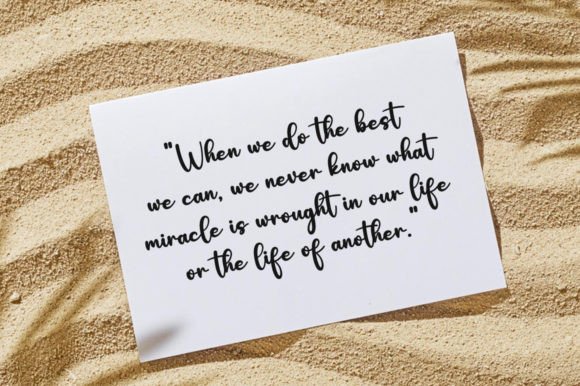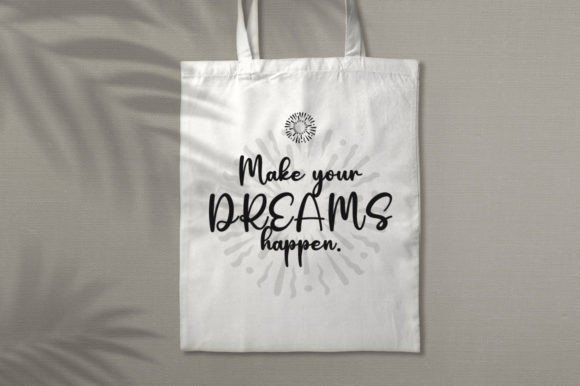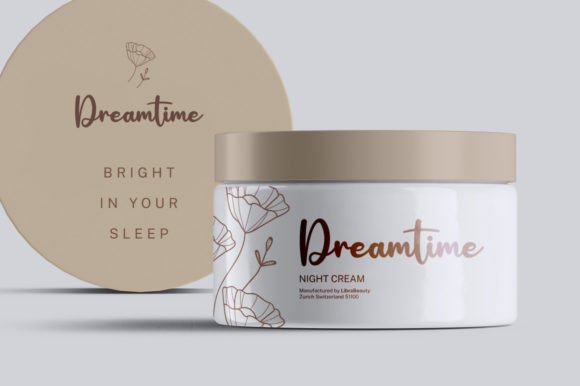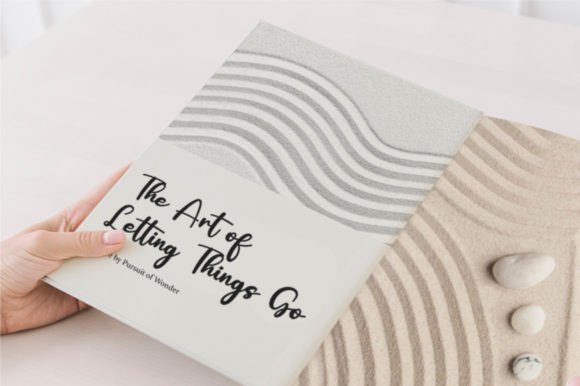
About Sand & Castle Font
Sand and Castle is a lovely and timeless handwritten font. It is the best choice for creating eye-catching logos, branding, and quotes. This font is PUA encoded which means you can access all the glyphs and ligatures with ease!